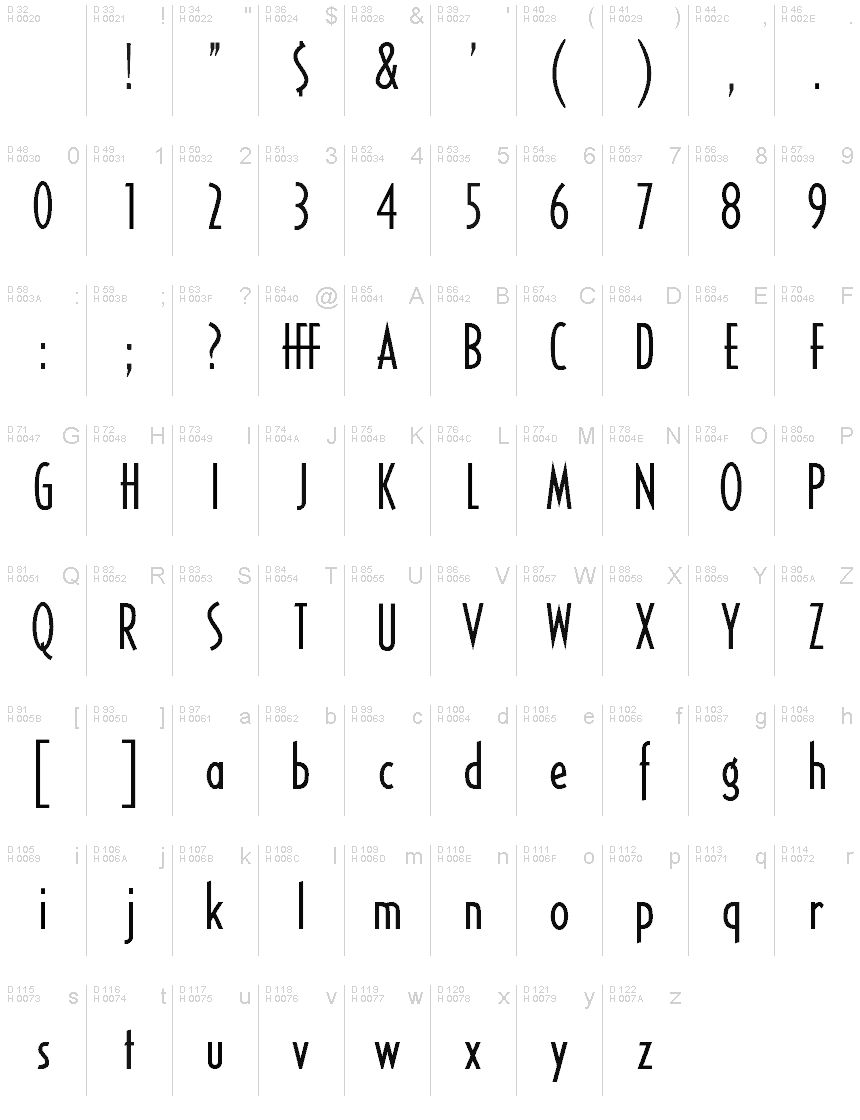
HFF Ice Bergman
Based on Casablanca Light Condensed from Condensed Alphabets by Dan Solo
HFF Ice Bergman is based on Casablanca Light Condensed, from "Brushstroke and Freestyle Alphabets: 100 Complete Fonts" by Dan X. Solo, first published by Dover Publications in 1986. Casablanca Light Condensed is also featured in "The Solotype Catalog of 4,147 Display Typefaces".